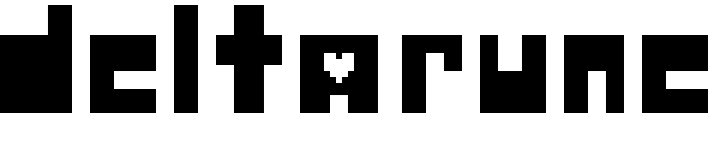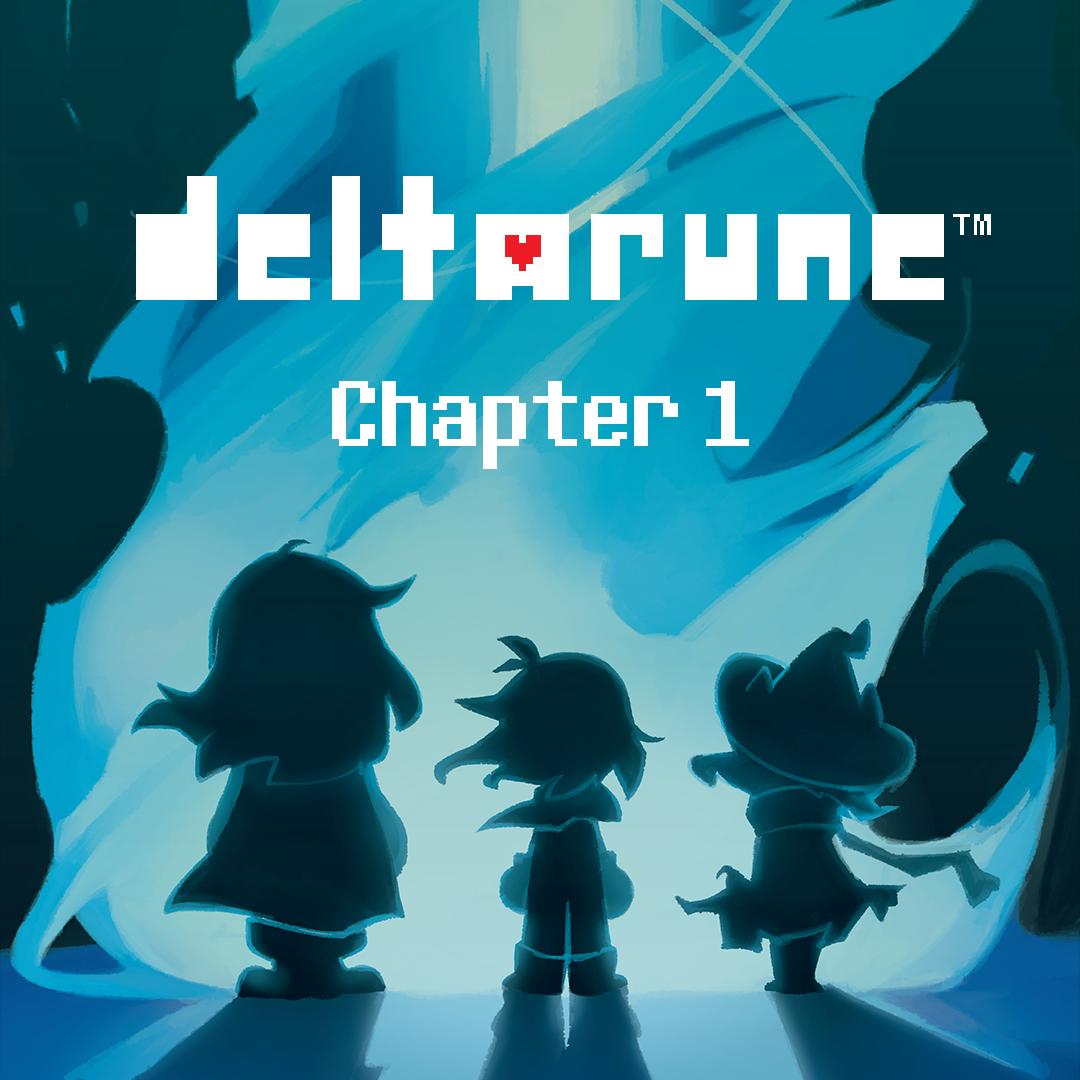
Deltarune Logo Font
Fonts in UseDeltarune is a role-playing video game created by Toby Fox, the creator of Undertale. The game follows a group of characters, including a human named Kris, as they navigate through a strange, dark world full of hidden secrets and dangers.
The promotional artwork for Deltarune: Chapter 1 showcases the game's main characters, Susie, Kris, and Ralsei, with a font called "Deltarune" created by Retro Gaming to match the logo style. The font allows users to access letters with hearts, such as the "A" in the logo, by typing their uppercase forms. You can access this font here on FontGet for free.